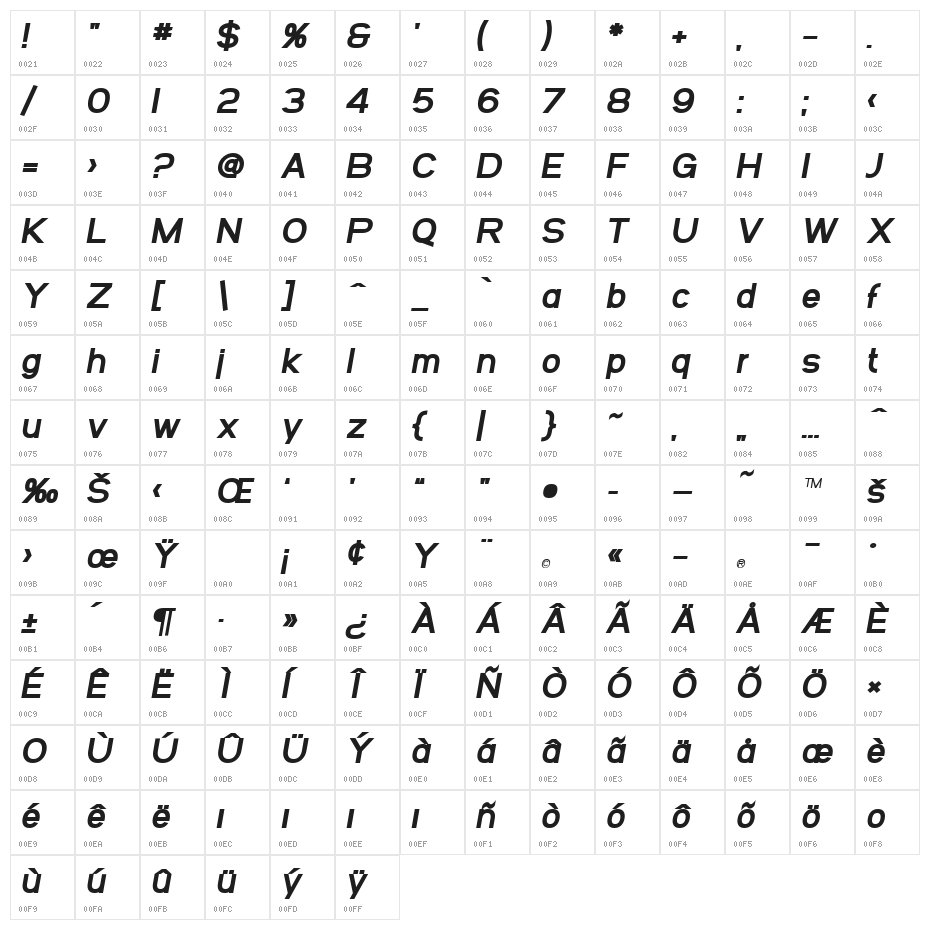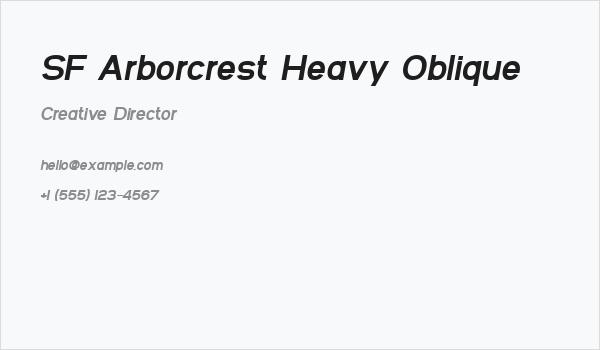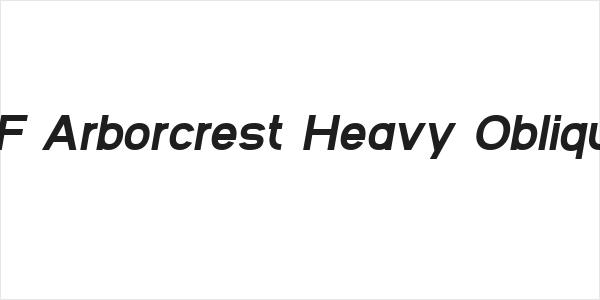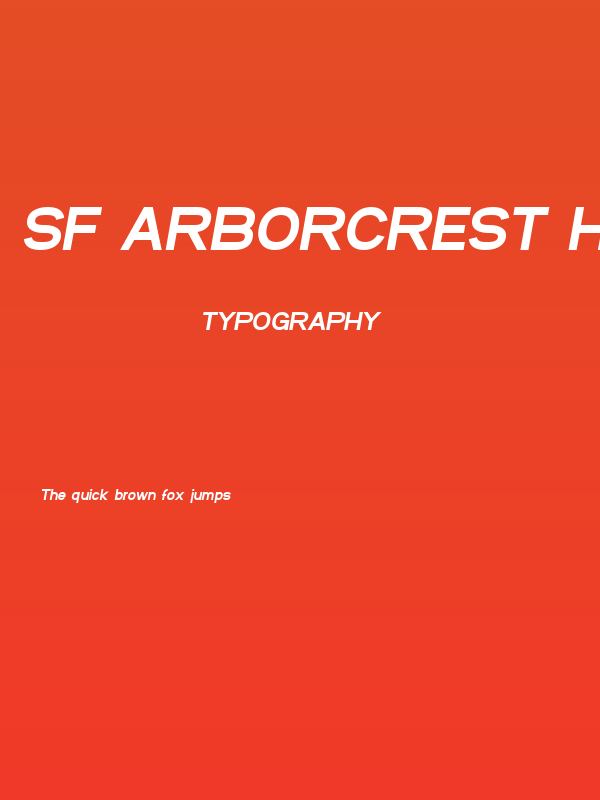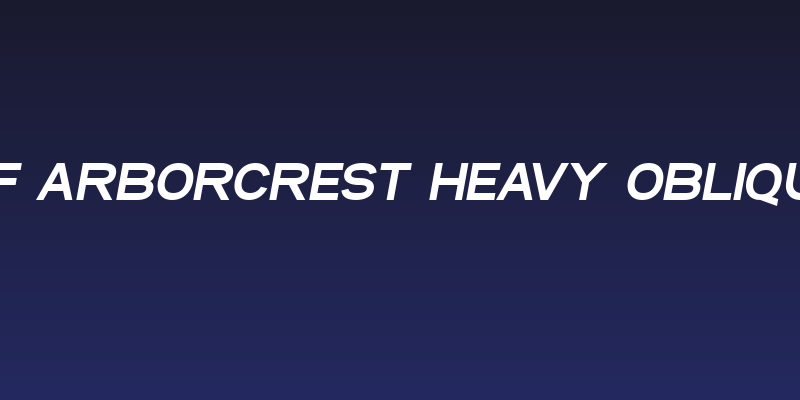
SF Arborcrest Heavy Oblique Font
SF Arborcrest Heavy Oblique Description
This font features a bold and dynamic style with a heavy oblique slant, giving it a sense of motion and energy. The characters are wide and robust, with a consistent stroke width that adds to its strong presence. The uppercase letters are particularly striking, with a clean and modern aesthetic. The lowercase letters maintain the same boldness, ensuring readability and uniformity across different text sizes. Numbers and special characters are designed to match the overall style, making them suitable for a variety of applications. The font's design is both contemporary and versatile, making it ideal for impactful headlines and branding projects.
| Proposed Projects | Ideal for branding, advertising, and headlines where a strong, modern impact is desired. |